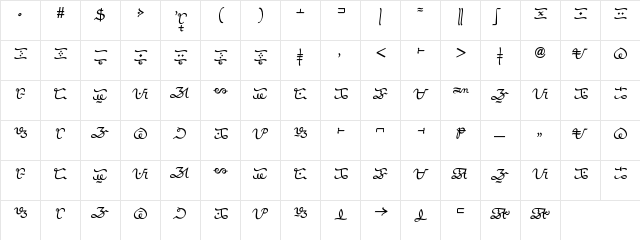
Maalong Tagalog 1 Brush Script Regular
Design Context for Maalong Tagalog 1 Brush Script Typeface
Maalong Tagalog 1 Brush Script flows with the natural rhythm of handwritten lettering, making it ideal for designs that call for warmth and personal expression.
Font Pairing: Combine Maalong Tagalog 1 Brush Script with a simple geometric sans for maximum contrast — the tension between flowing curves and clean structure is a classic typographic pairing.
Pro Tip: Pair Maalong Tagalog 1 Brush Script with a clean sans-serif for supporting text. The contrast between fluid script and geometric structure creates an elegant typographic hierarchy.